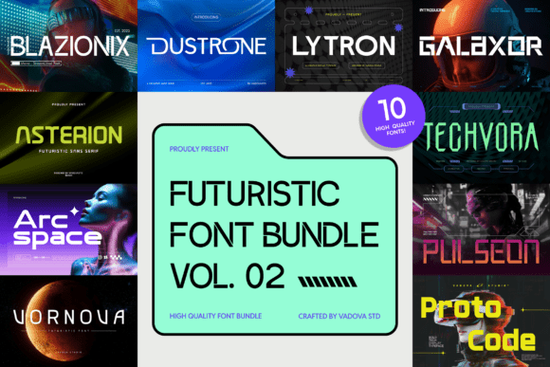
If you're working on a project that needs to feel fast, digital, and ahead of its time, the Futuristic Bundle Vol.02 Font gives you exactly that kind of visual language. This bundle includes 10 display-focused typefaces built around sharp angles, clean geometry, and a strong sci-fi feel. Whether you're designing a cyberpunk poster, a gaming interface, or branding for a tech startup, these fonts are made to stand out and communicate innovation at first glance.
What kind of projects actually need a futuristic font?
Not every design calls for a typeface that looks like it belongs on a spaceship control panel. But when you want to communicate speed, precision, or a forward-looking attitude, a standard serif or handwriting font won't cut it. Futuristic fonts work especially well for:
- Tech and SaaS branding – logo marks, headlines, and hero sections that need a modern, precise feel
- Gaming visuals – titles, loading screens, and UI elements in sci-fi or cyberpunk settings
- Posters and event flyers – especially for tech conferences, product launches, or music events with an electronic theme
- Print-on-demand merchandise – t-shirts, hoodies, mugs, and stickers that need bold, readable text with attitude
- Social media graphics – quote cards, announcement posts, and cover images that need to grab attention fast
Each font in this bundle comes with its own personality, but they all share that same digital-first DNA. You can use one on its own for maximum impact, or layer a few together for a more complex look.
How do these fonts compare to a more neutral sans-serif?
Futuristic fonts serve a different purpose. They're built for display use meaning they work best at larger sizes where their unique shapes and details can really shine. While a neutral sans-serif stays out of the way and lets the content speak, a futuristic font becomes part of the visual experience itself. It adds atmosphere and attitude.
That said, you can pair them together. Use a neutral sans-serif like Hammer Font for body copy or secondary information, then bring in one of the futuristic styles from this bundle for your main headline or call-to-action. The contrast between a simple, readable base and a bold, angular display font can look really sharp.
One thing to keep in mind with display fonts is readability at small sizes. Because these typefaces have strong geometric shapes and sometimes thin strokes, they work best at medium to large sizes. For small text on a product like a sticker or a label, test the print preview first to make sure everything stays clear.
- Preview the glyphs – Look at the full character set to see if there are alternate characters, ligatures, or special punctuation that might be useful for your designs.
A quick checklist for using futuristic fonts in your next project
Here's a simple rundown to help you get the most out of this type of font collection:
- Start with one font for your main headline and build the rest of the layout around it
- Pair it with a simple, readable sans-serif for body text or supporting info
- Test the font at different sizes to find the sweet spot where details are visible but text stays legible
- Use white space around your text futuristic fonts often have strong shapes that need room to breathe
- Try layering effects like glow, gradient, or outline to enhance the sci-fi feel (but don't overdo it)
Whether you're building a brand identity for a tech product, designing game assets, or just experimenting with a new visual style, this bundle gives you a solid set of tools to work with. Start with one font, test it in a few layouts, and see where the design takes you.